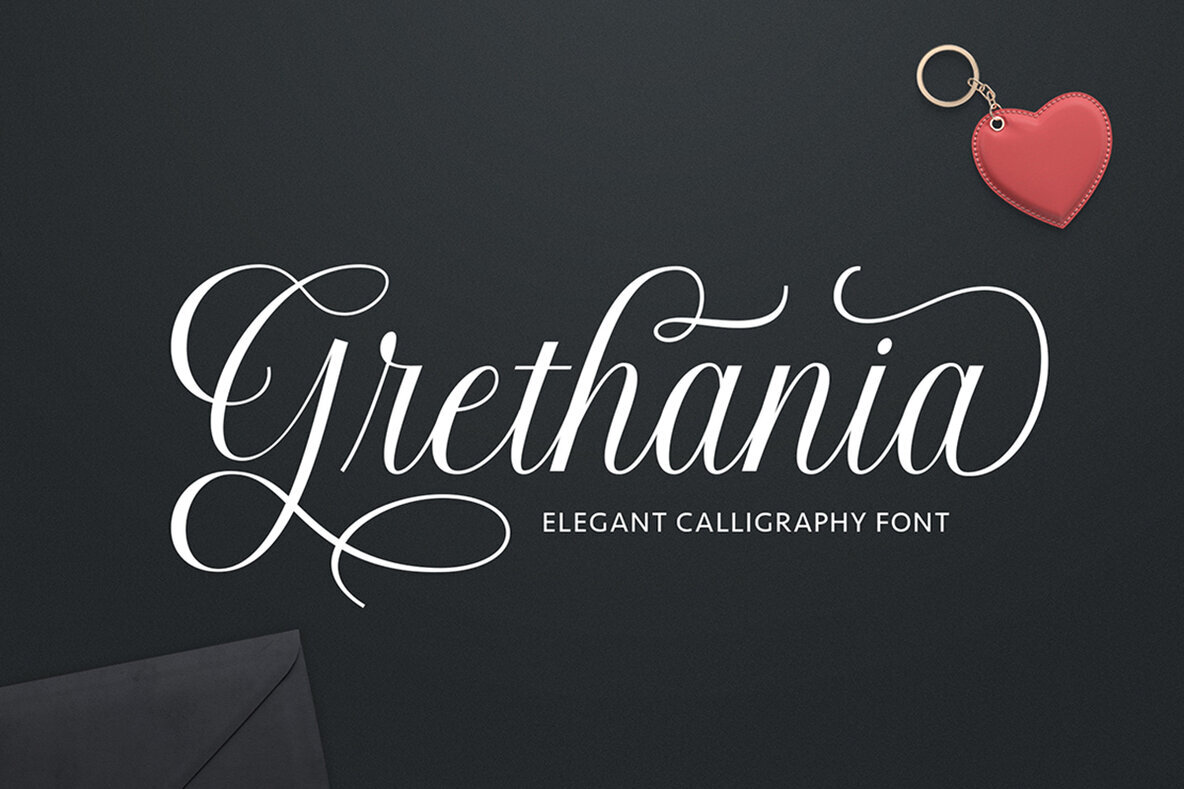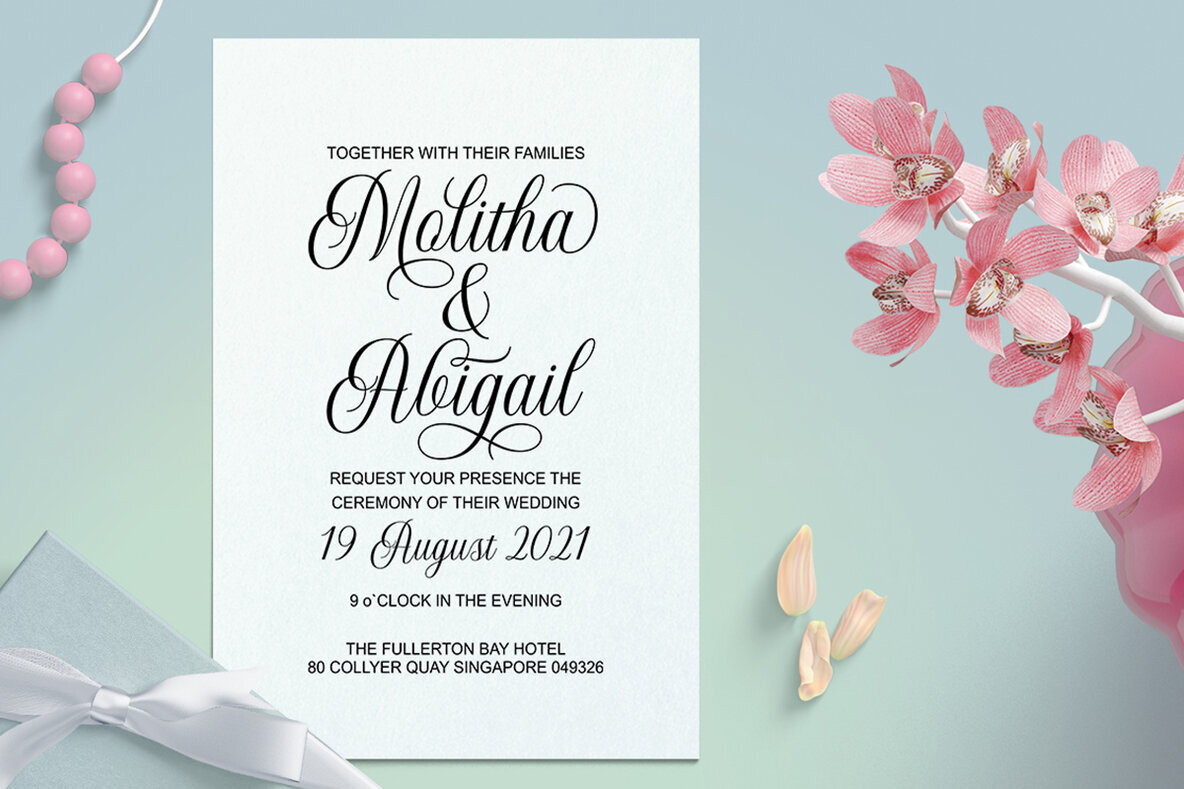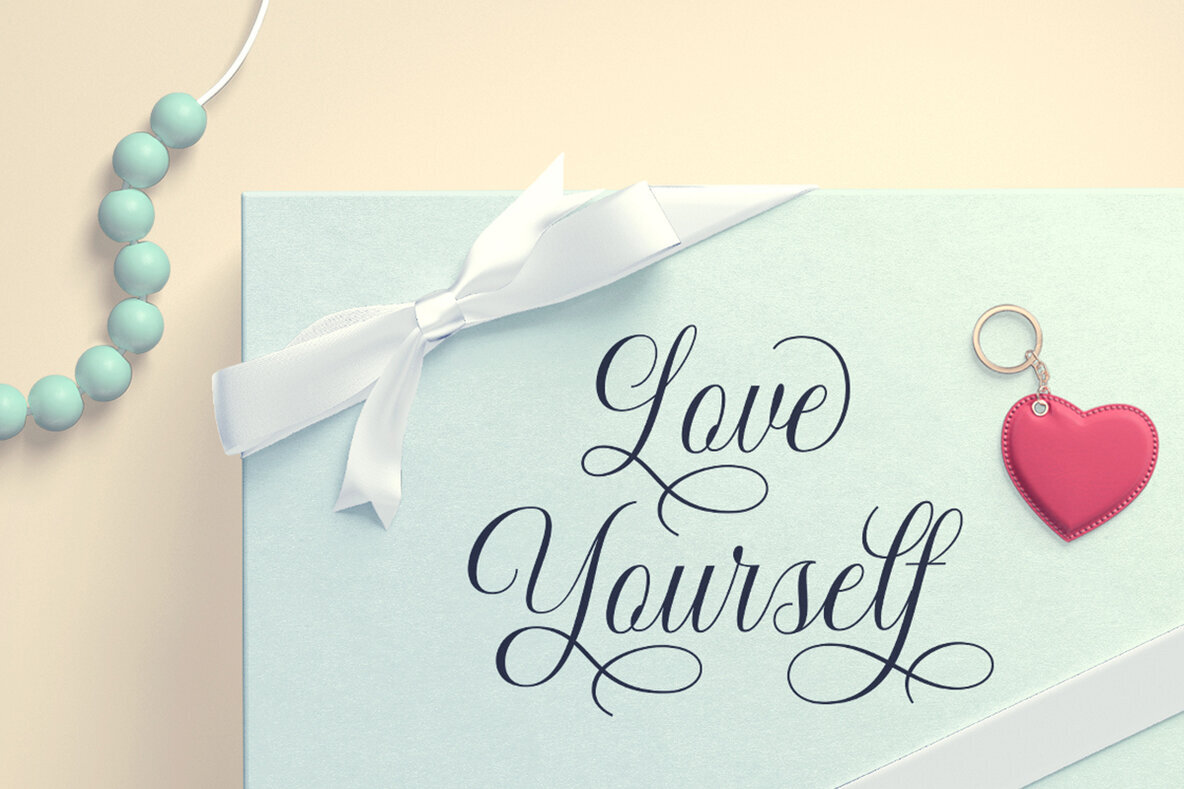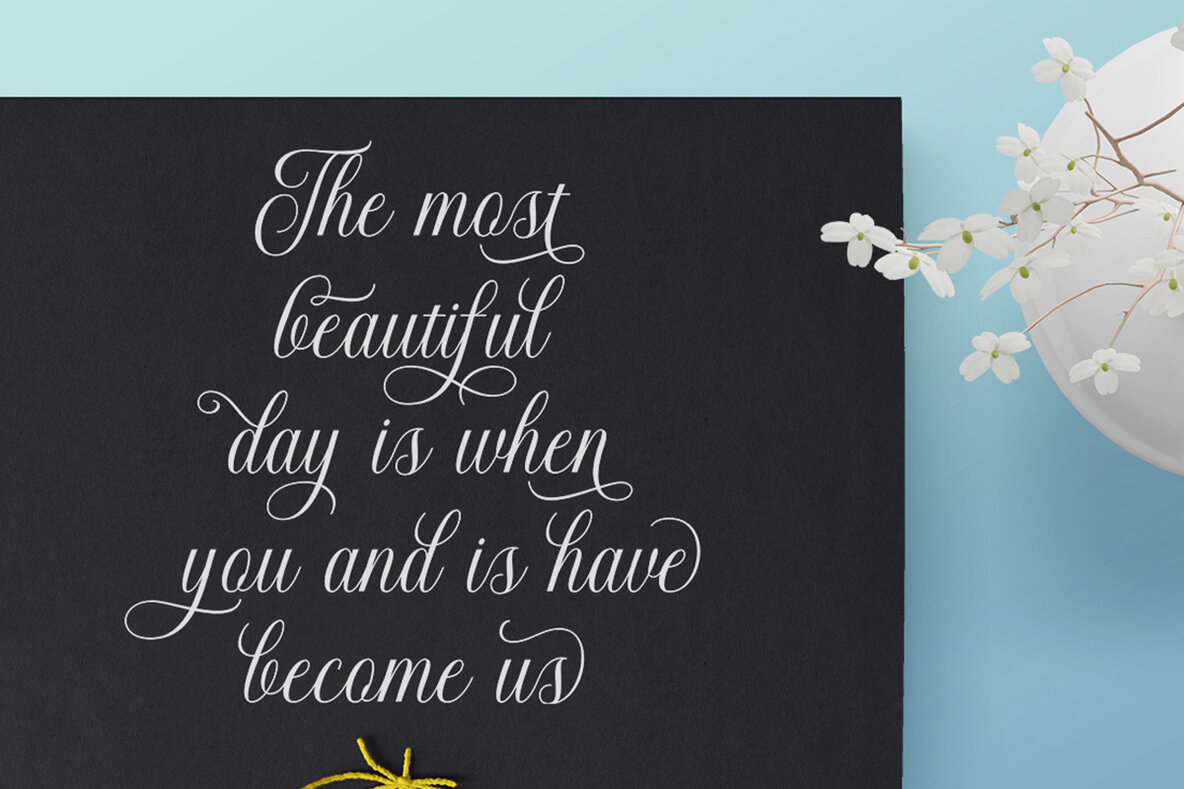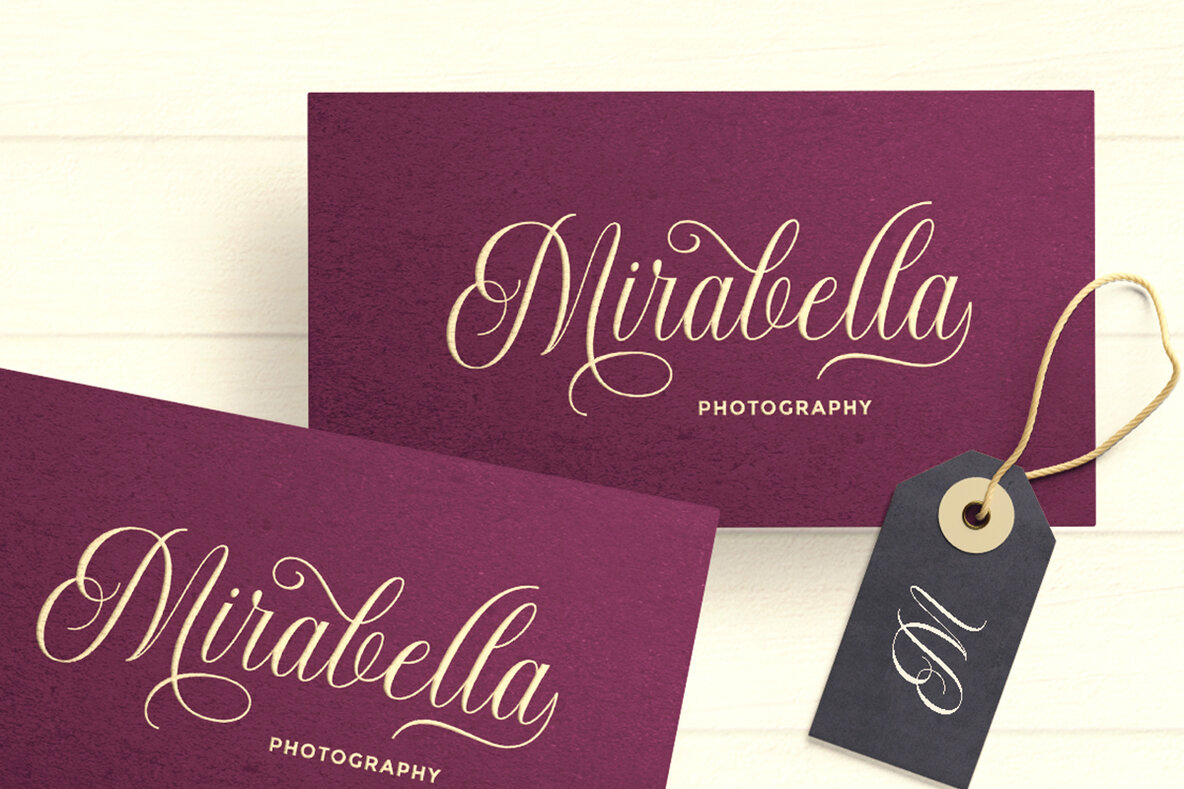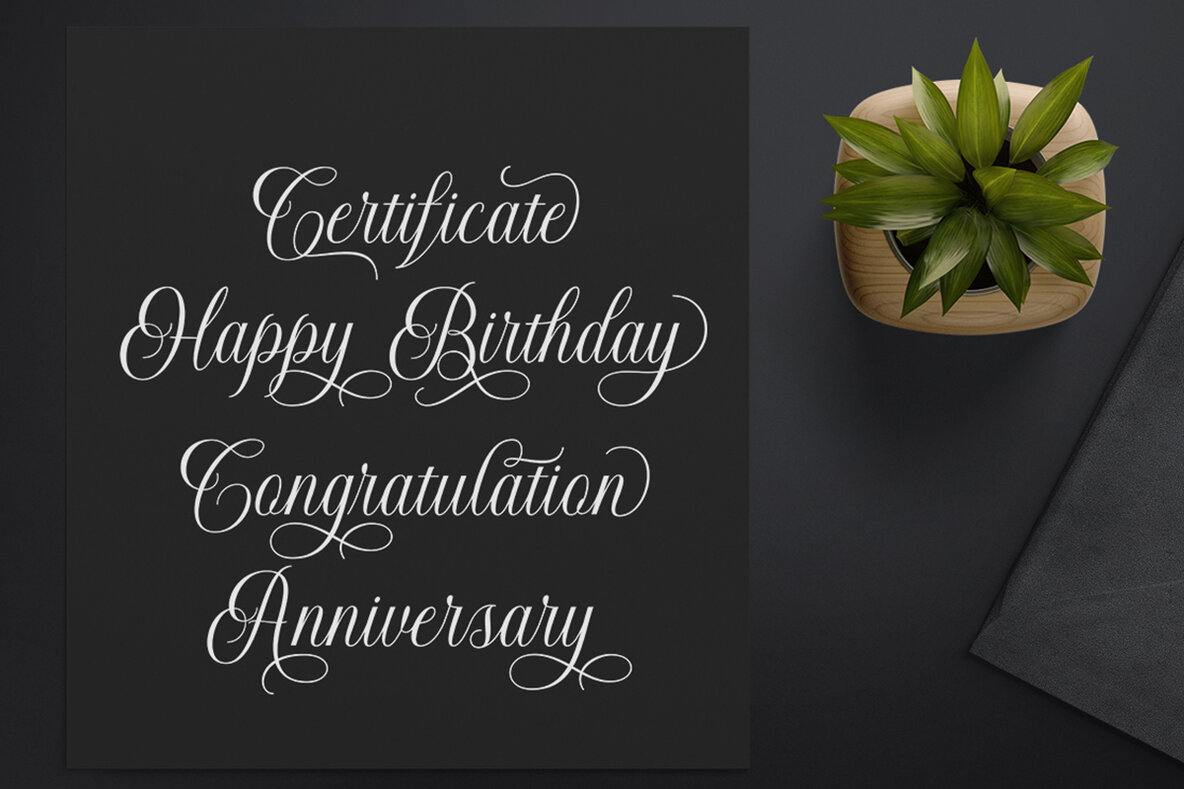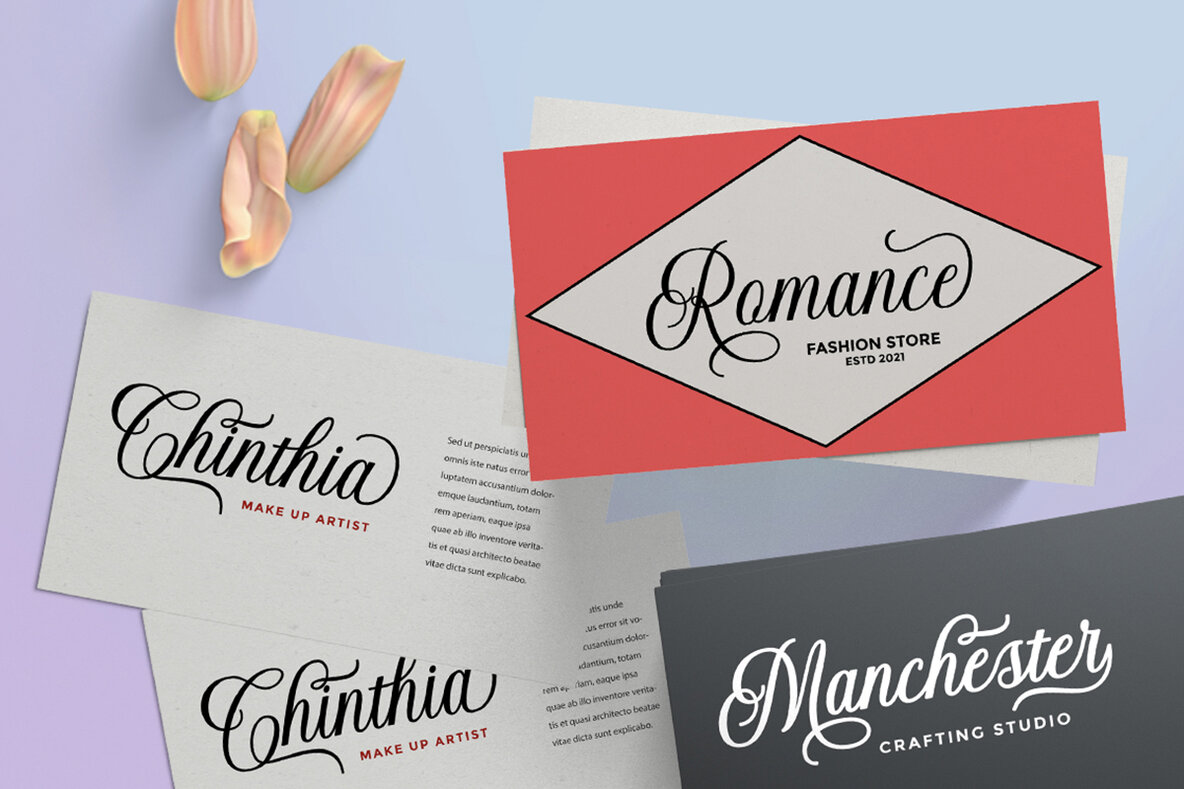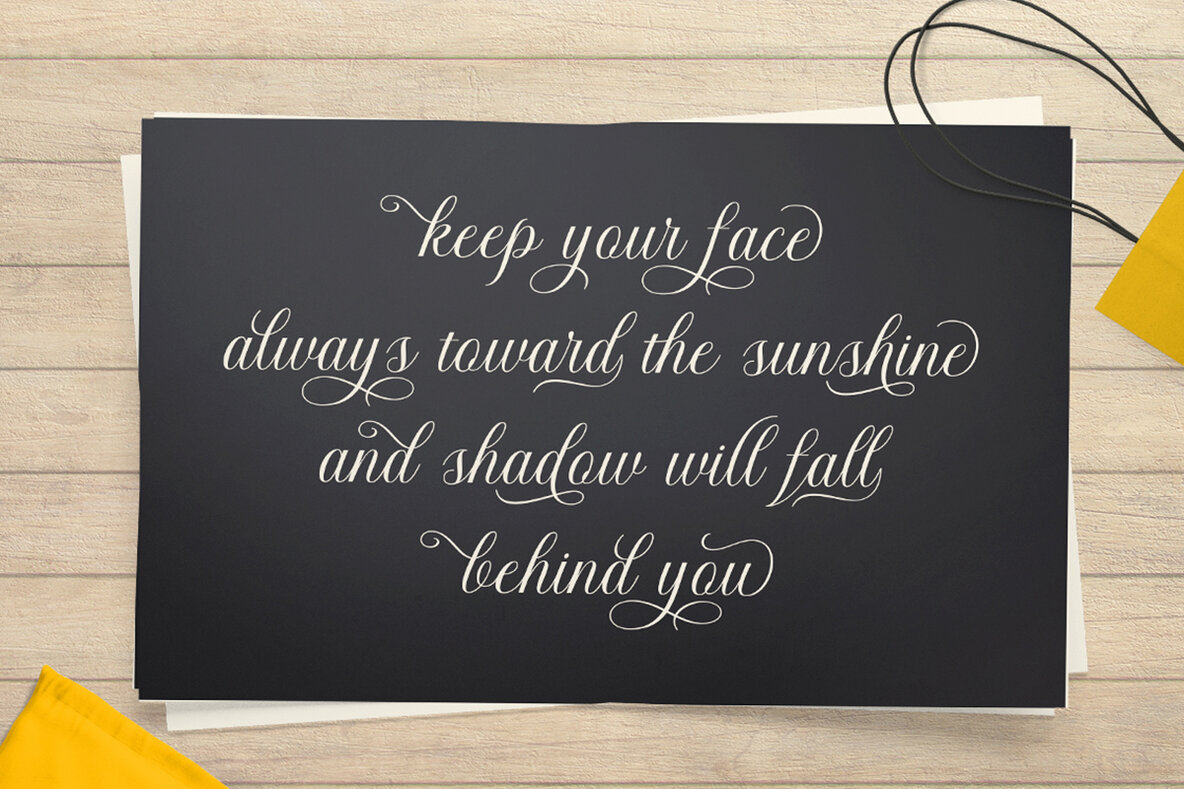
Grethania Font
Grethania Script is a stunning calligraphic font that elegantly blends the finesse of copperplate calligraphy with a handlettering style. Its smooth curves and clean lines make it an excellent option for various applications. The feminine and glamorous aesthetic naturally lends itself to formal projects like invitations, labels, fashion branding, stationery, novels, and more.
Featuring over 310 glyphs and 122 alternative characters, Grethania Script offers extensive language support and versatile design possibilities. The font includes OpenType features like stylistic alternates, swashes, and ligatures, enabling seamless integration and creativity in your digital designs. For optimal use of these features, compatible software such as Adobe Illustrator, Adobe Indesign, CorelDraw, and Microsoft Word are recommended. Embrace the classic and sophisticated style of Grethania Script for your next creative project.